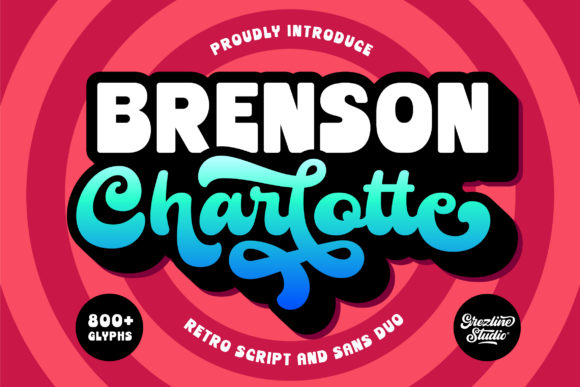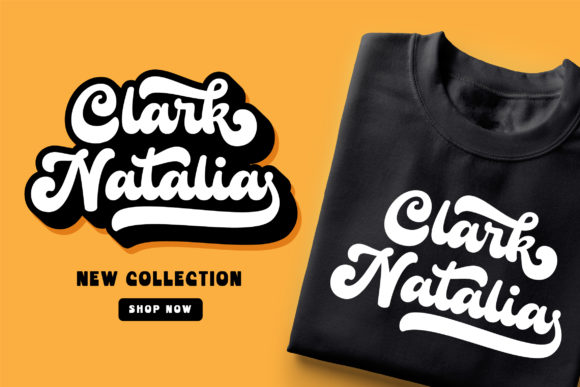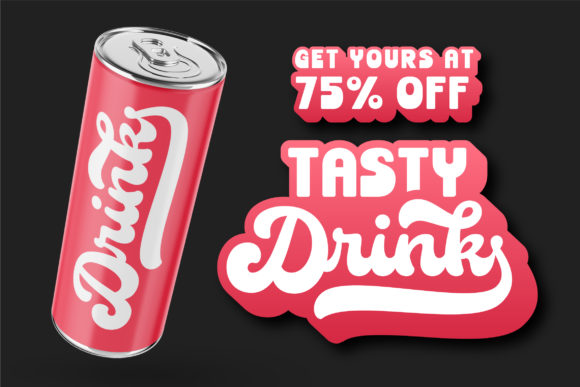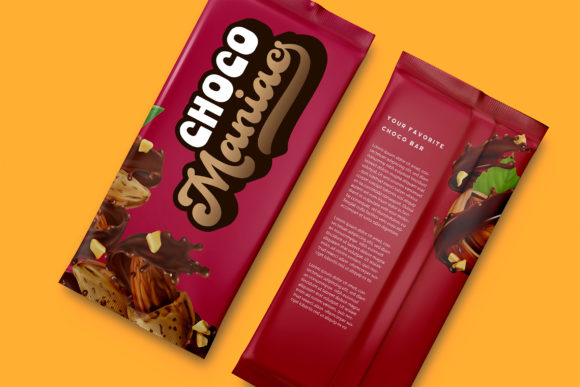
Brenson Charlotte Font: Retro Script & Sans Serif Duo for Creative Branding
About the Brenson Charlotte Font
The Brenson Charlotte Font offers a perfect balance of form and function for your design needs. Brenson Charlotte is a unique retro duo font (Script & Sans Serif). It has a bold and dynamic looks and is perfect for making any design stand out. Brenson Charlotte is perfect use for a logotype, typography design, product packaging, quotes, t-shirt design, label poster, headings, letterhead, cutting sticker, hot stamping, signage, and anything that need retro taste.
Its bold, dynamic forms make Brenson Charlotte ideal for headlines, short impactful text, and branding applications where a retro yet modern aesthetic is desired. It excels in logo design, packaging, and posters, lending a strong vintage feel. However, its strong visual weight makes it unsuitable for body text or lengthy paragraphs; readability suffers at smaller sizes.
Consider pairing the sans-serif component with a clean, geometric sans-serif like Futura for a balanced, modern feel, or contrast it with a classic serif like Garamond for a sophisticated vintage look. The script counterpart pairs well with a minimalist sans-serif like Montserrat for a contemporary, yet slightly playful feel.
The overall personality is best described as bold and retro-modern; energetic yet sophisticated. Brands seeking a vintage-inspired identity with a contemporary edge will find Brenson Charlotte a powerful asset.
Brenson Charlotte Font Usage Examples
Brenson Charlotte Font Example